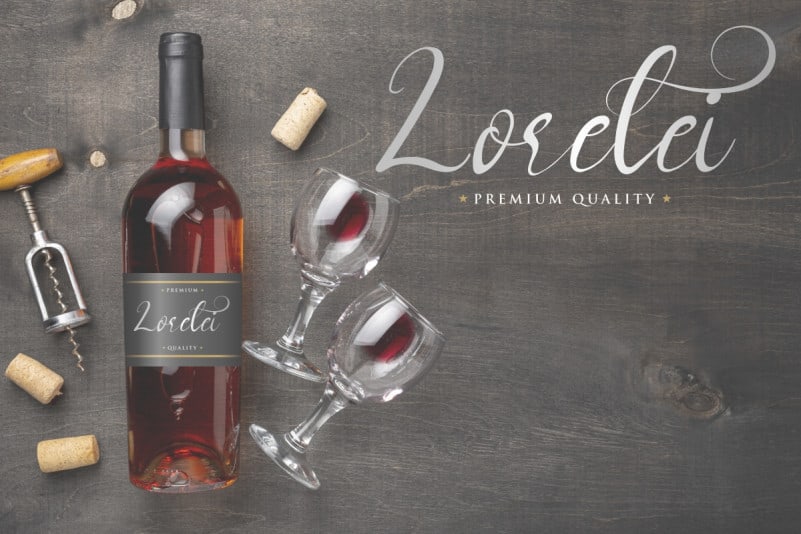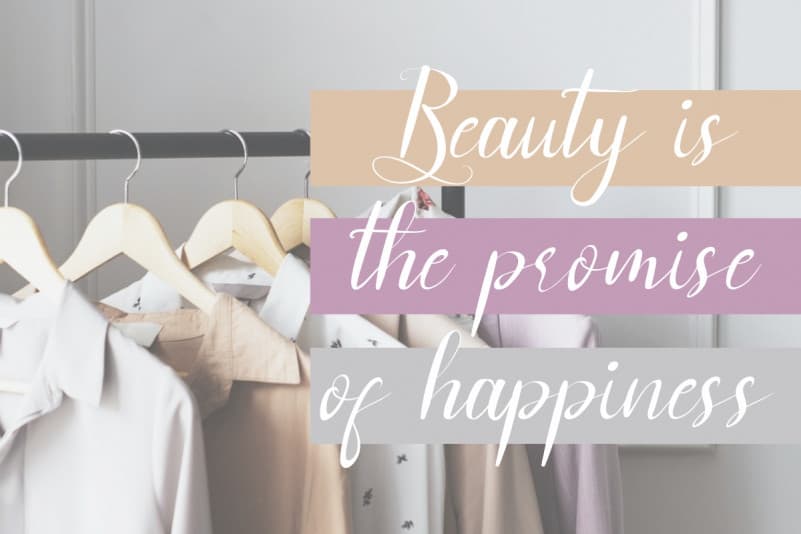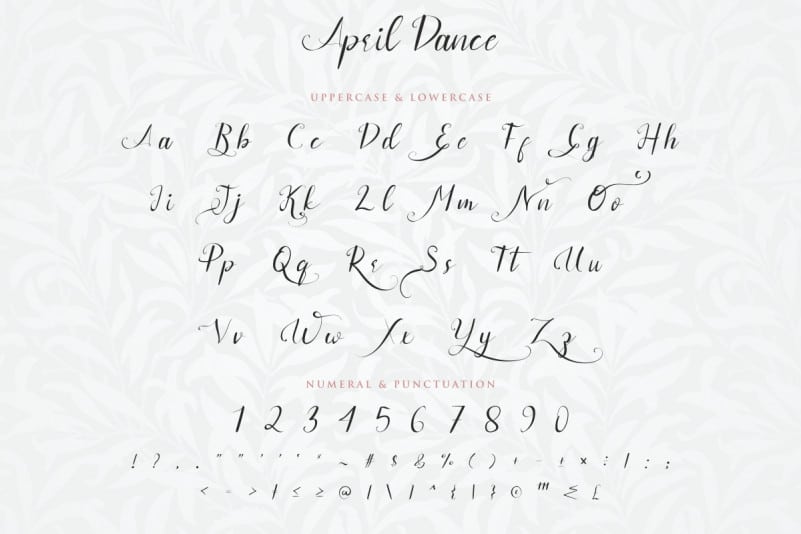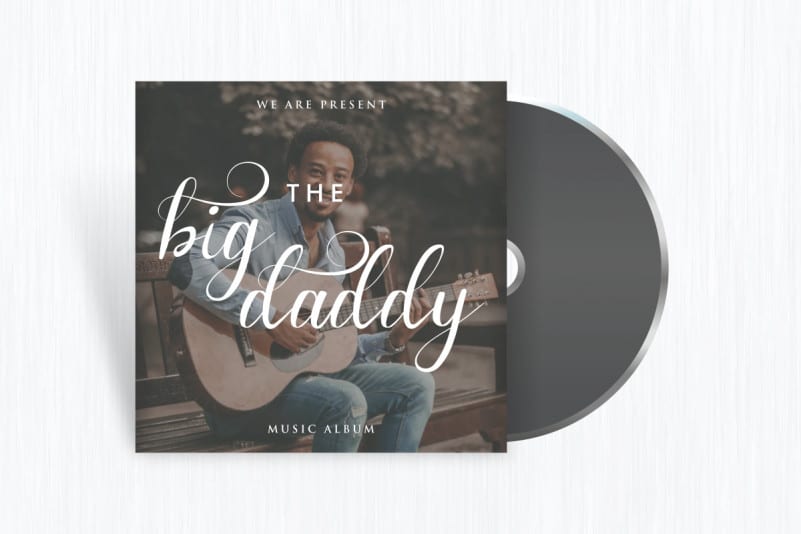
April Dance Calligraphy Font
April Dance Calligraphy Font has exclusive handmade script letters with unique natural look that is elegant, sophisticated, stylish, textured and classic style. It has a stunning characters set, perfectly managed with well spaced and kerning.
April Dance Calligraphy Font will be great for any projects (with extended license) including : branding, logo, stationery, business card, signage, flyer, brochure etc. Almost all industries will be match for this typeface: wedding, events, restaurant, architect, law firm, florist, gardening, makeup artist, travel, hotel, musician etc